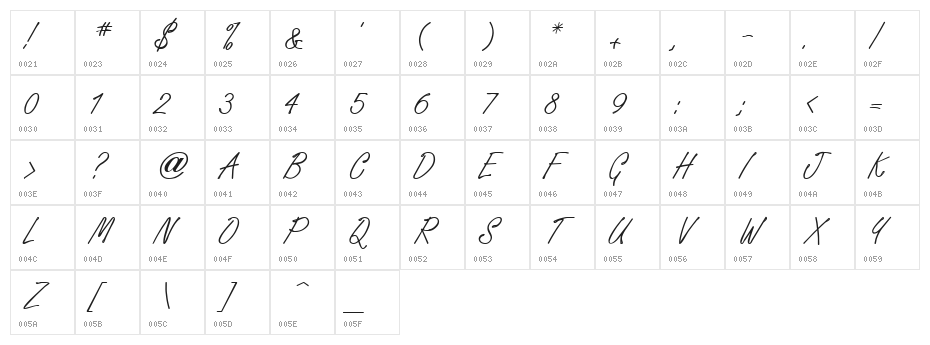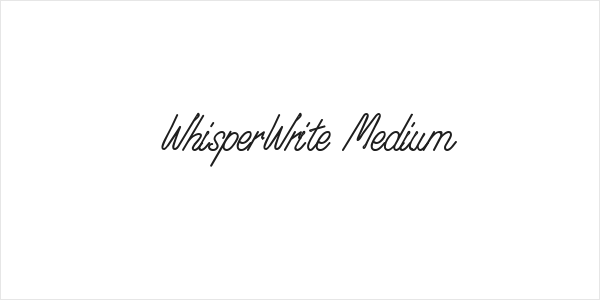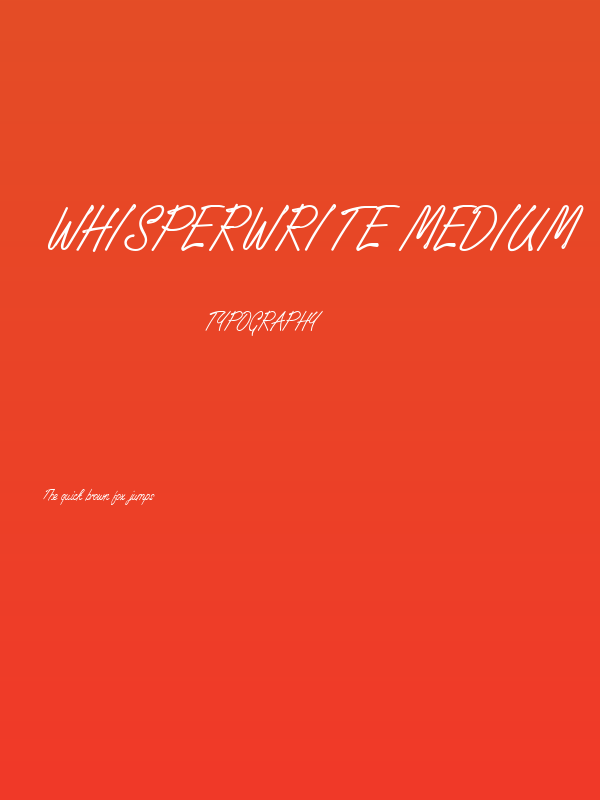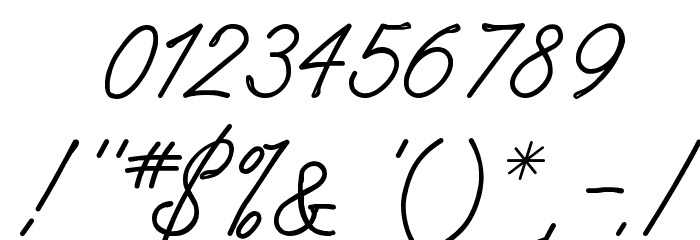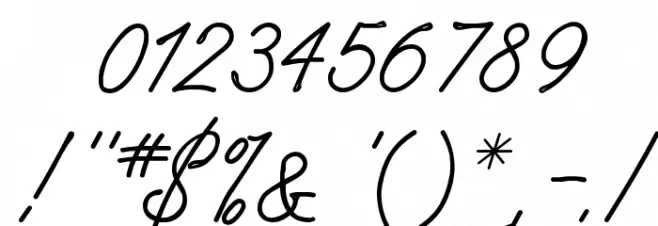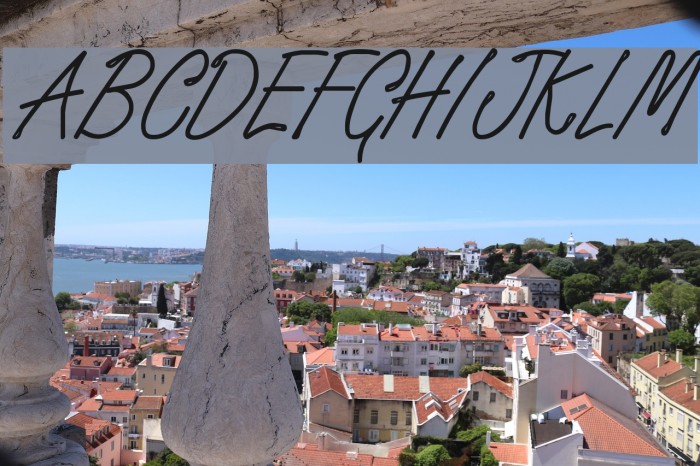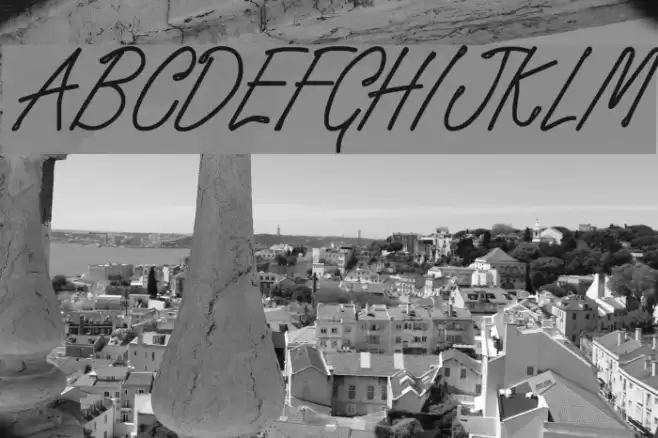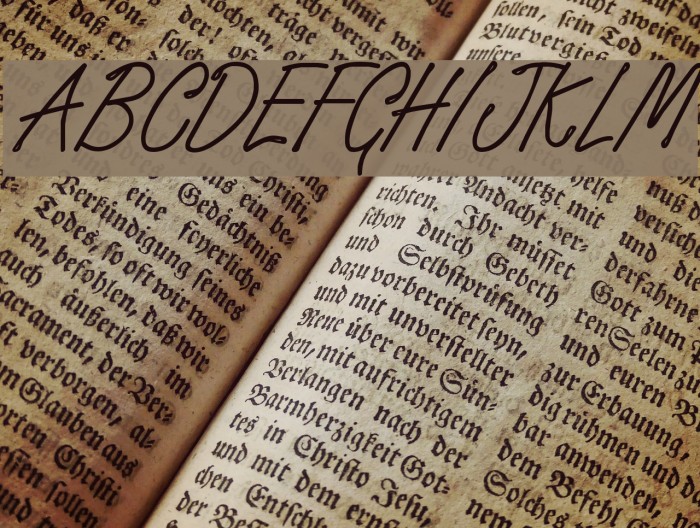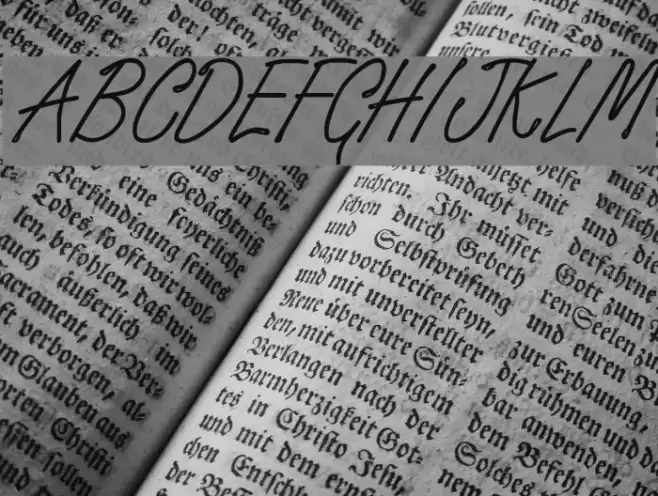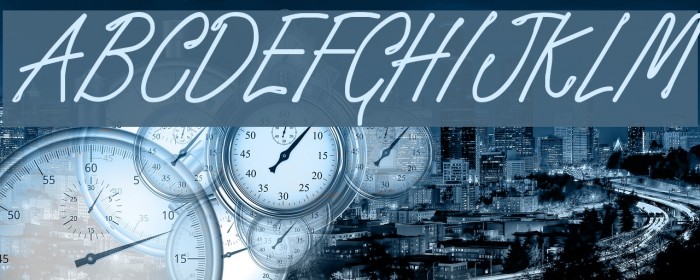
WhisperWrite Medium Font
| 全体的なスタイル | Elegant, Handwritten |
| 用途 | Logos, Invitations, Artistic projects |
| おすすめプロジェクト | Ideal for wedding invitations, personal branding, greeting cards, and artistic projects. |